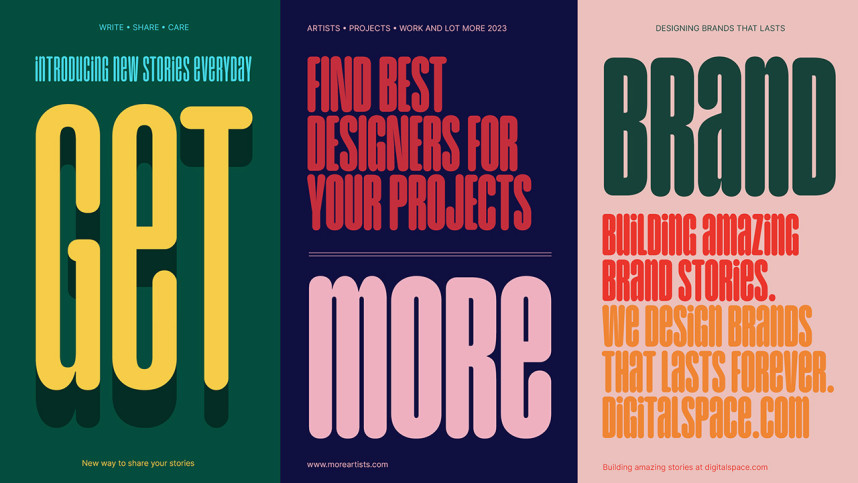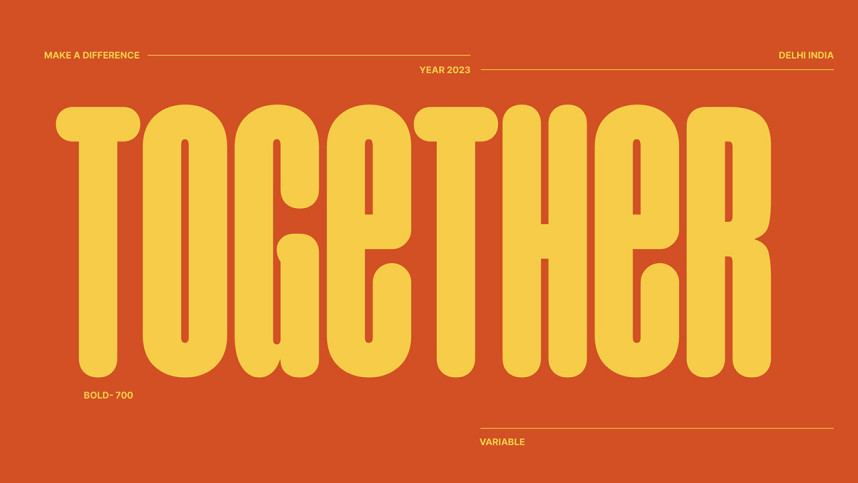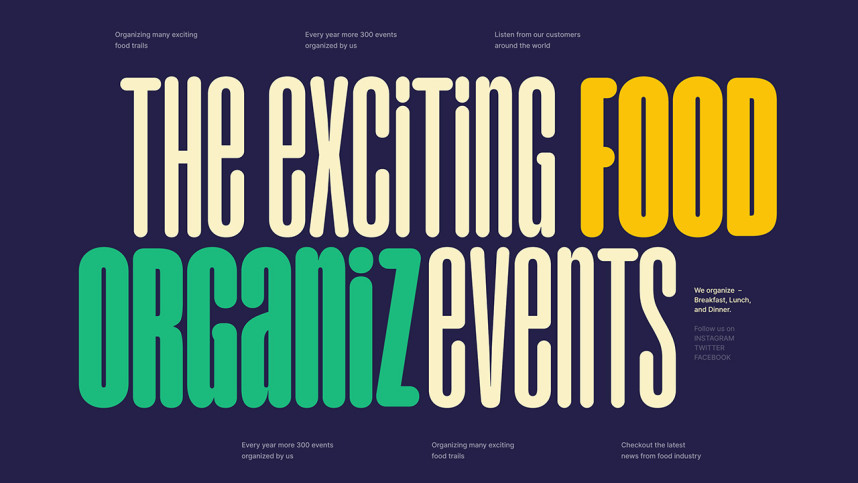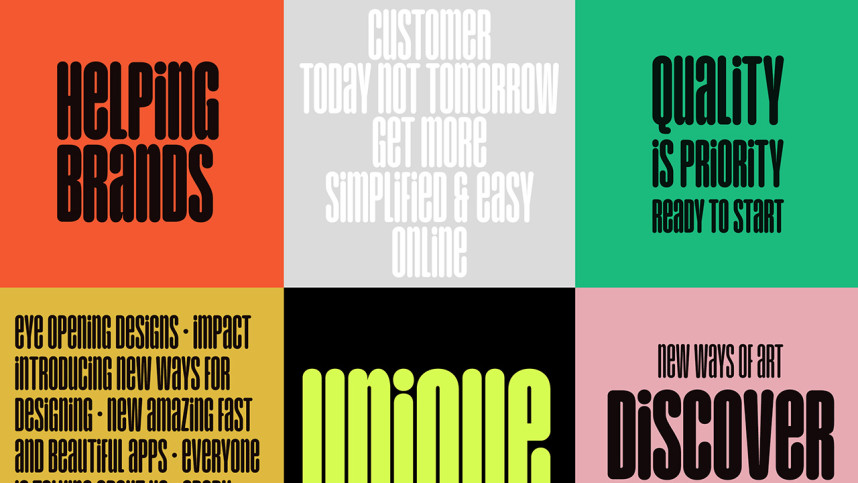
Unique Font Family is a charming rounded typeface. If you have seen my other typeface Humane, this is the rounded version of that, with some alternate characters as an open type feature. Unique has seven weights, from Thin to Bold, supporting multiple Latin languages. It has its own delightful personality and will be the right choice for – Bold Titles, Logos, Headlines, Posters, etc.